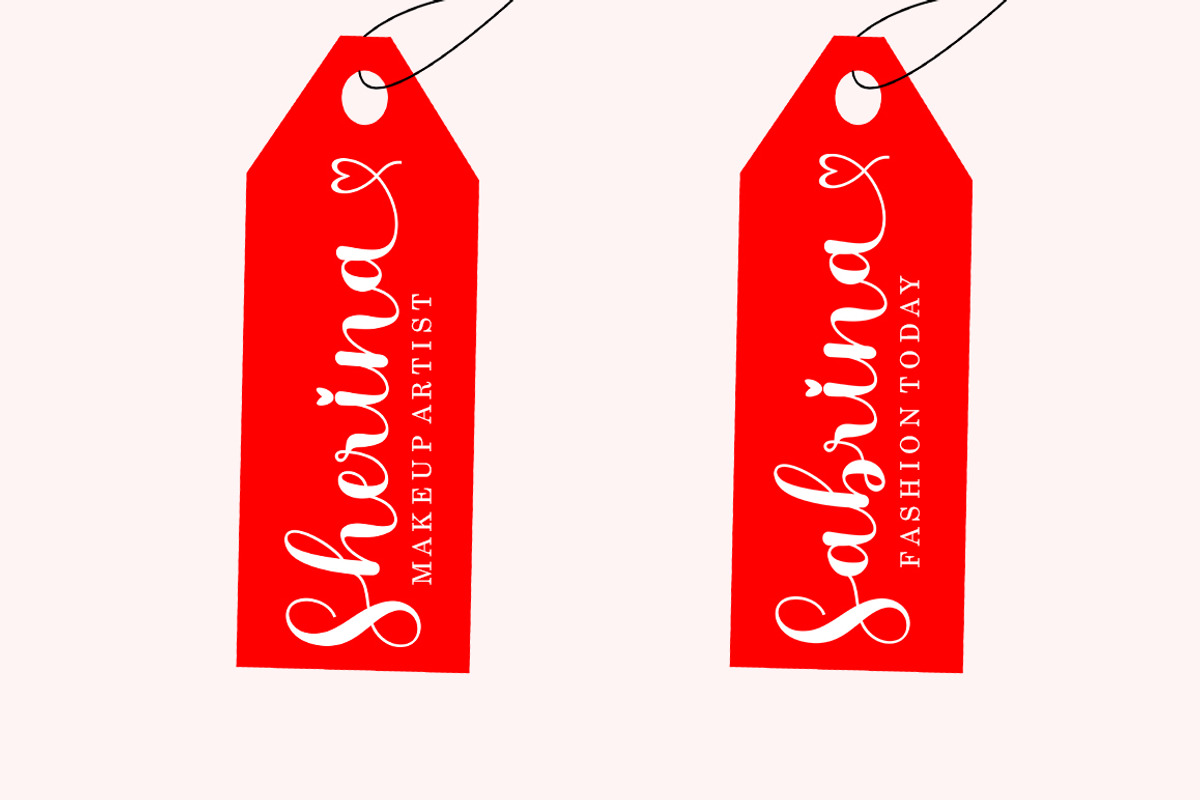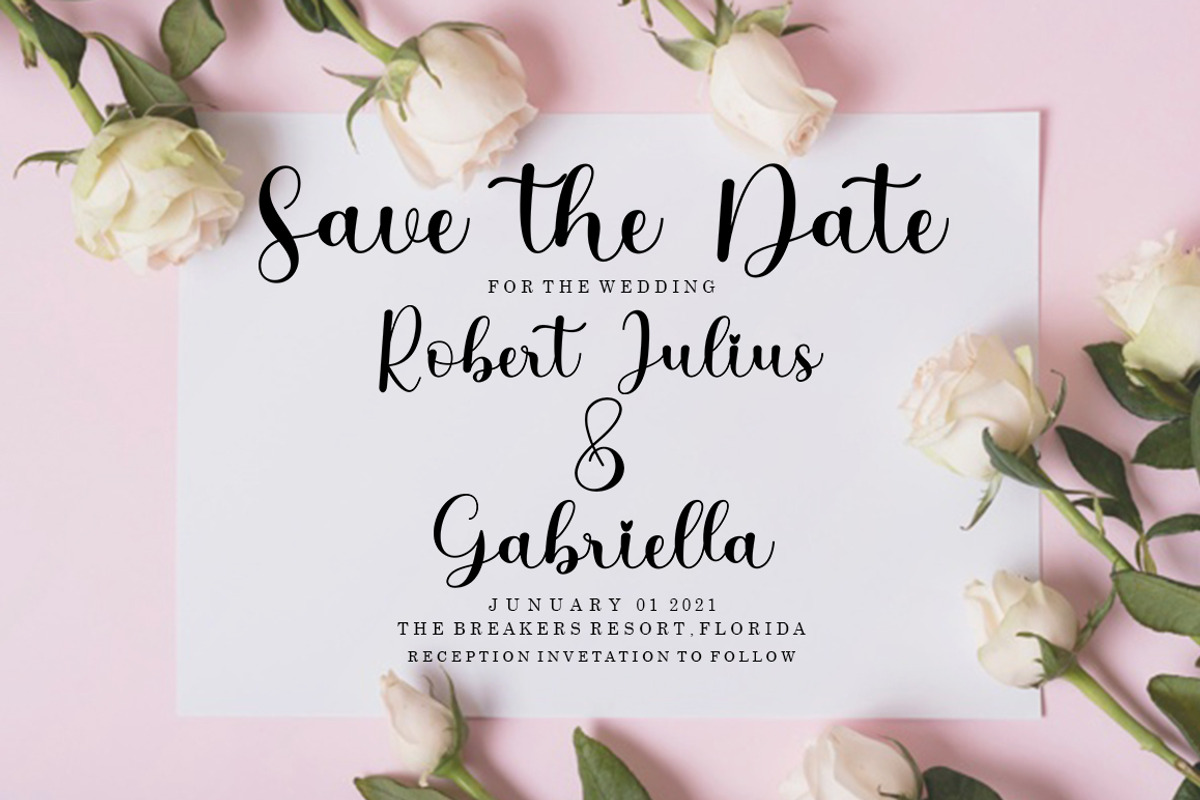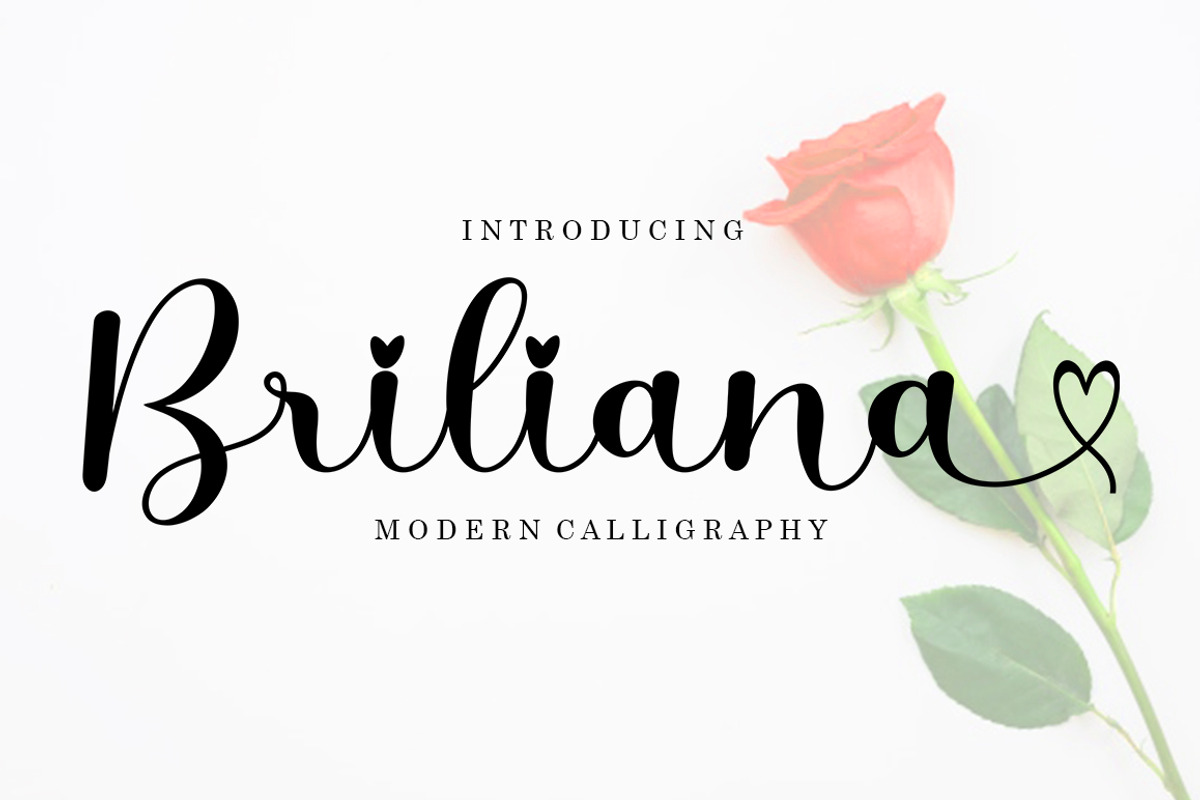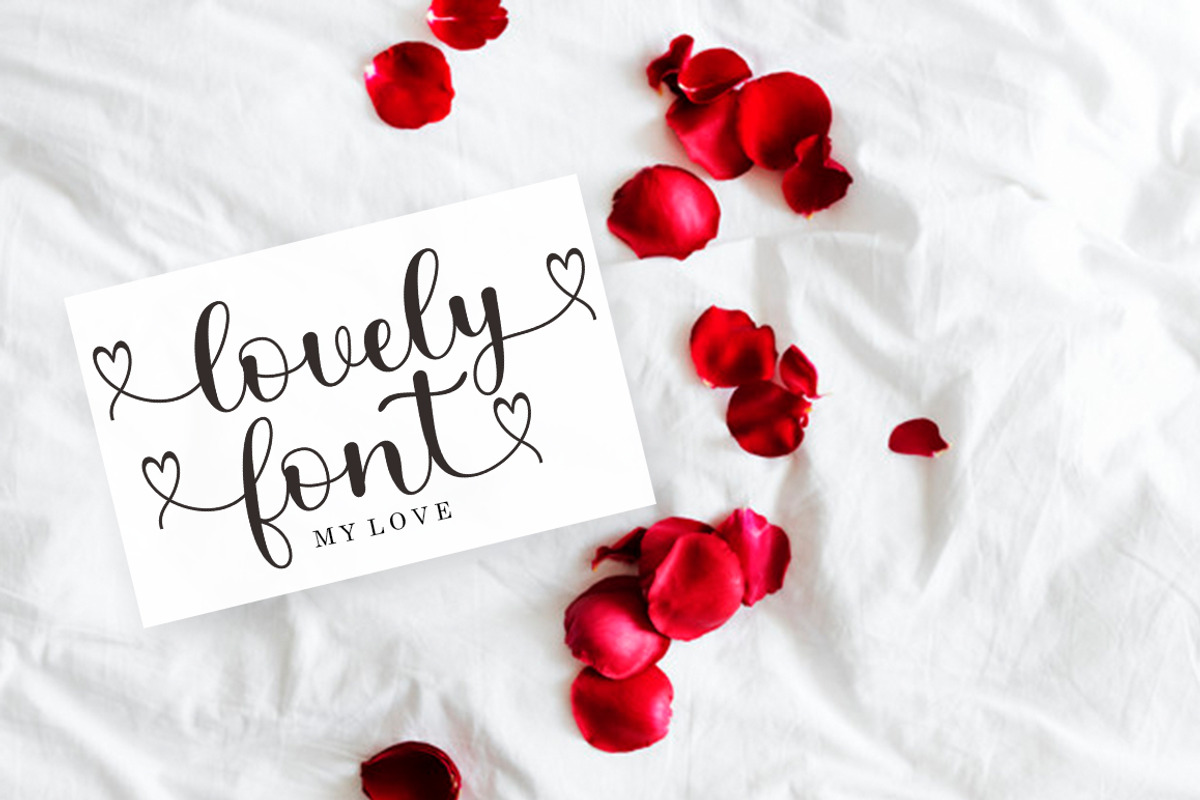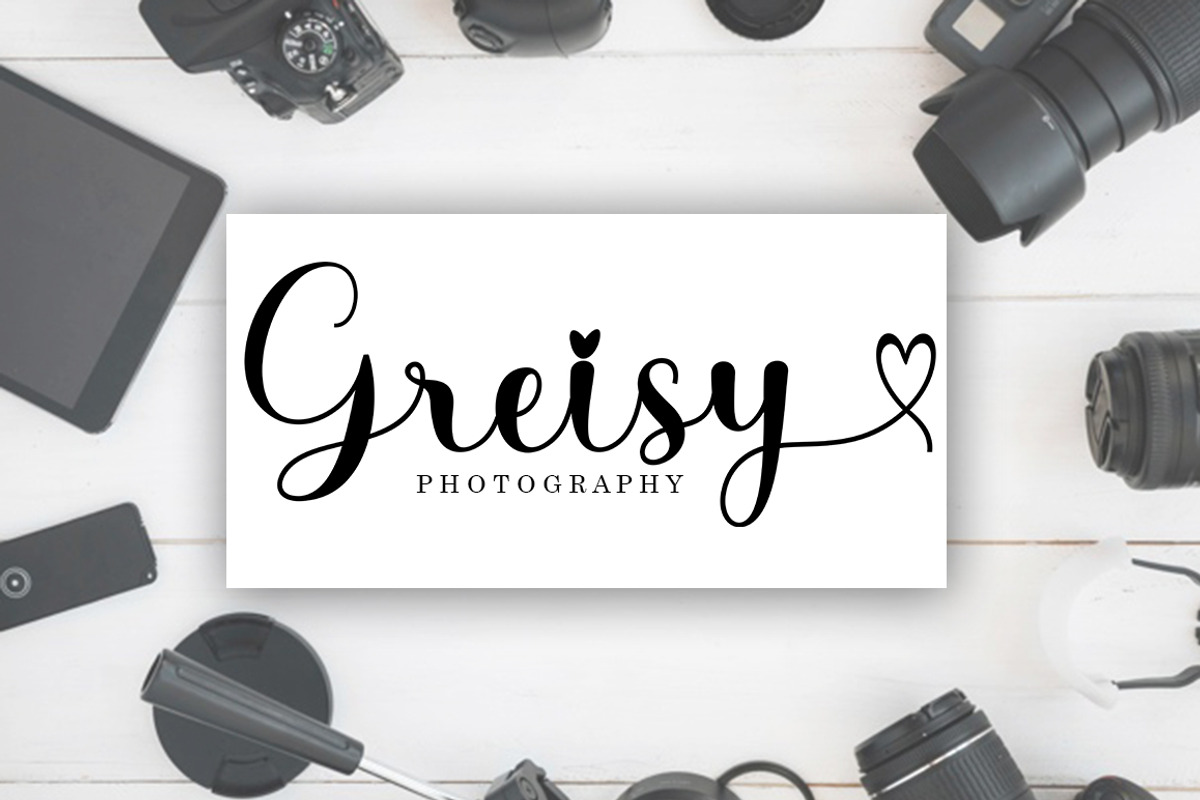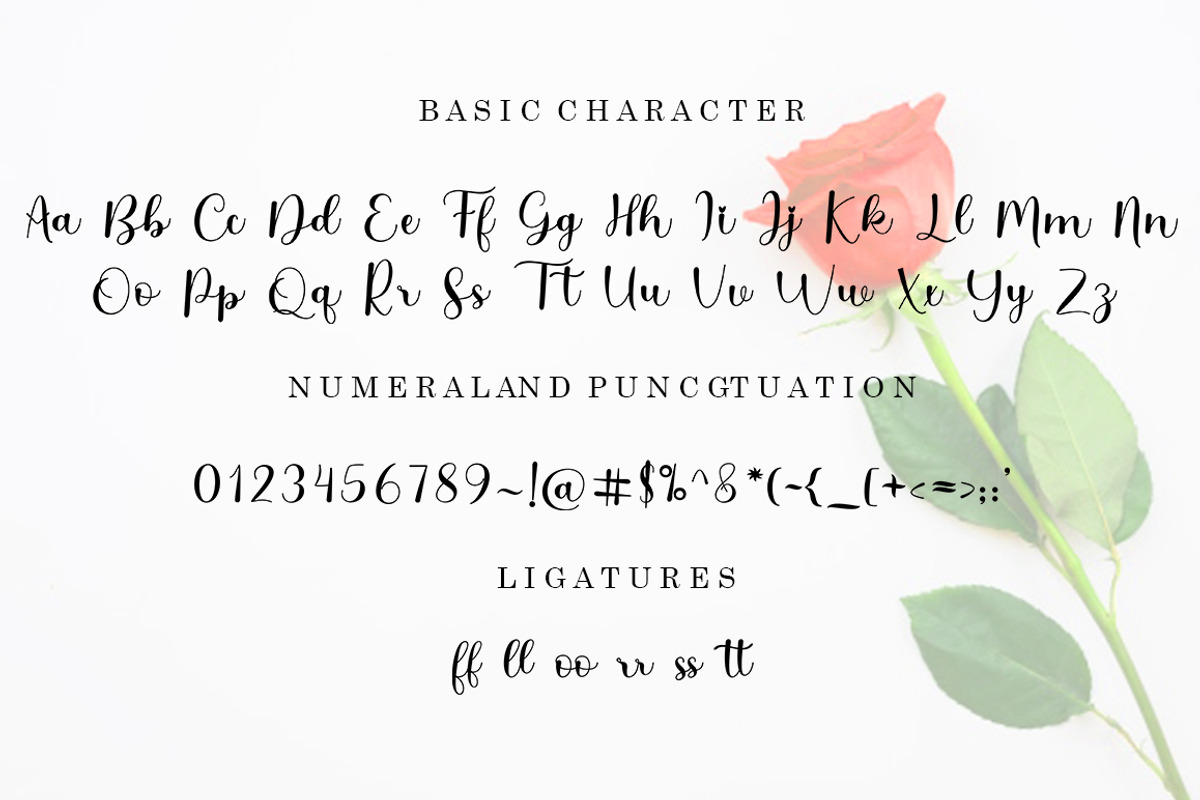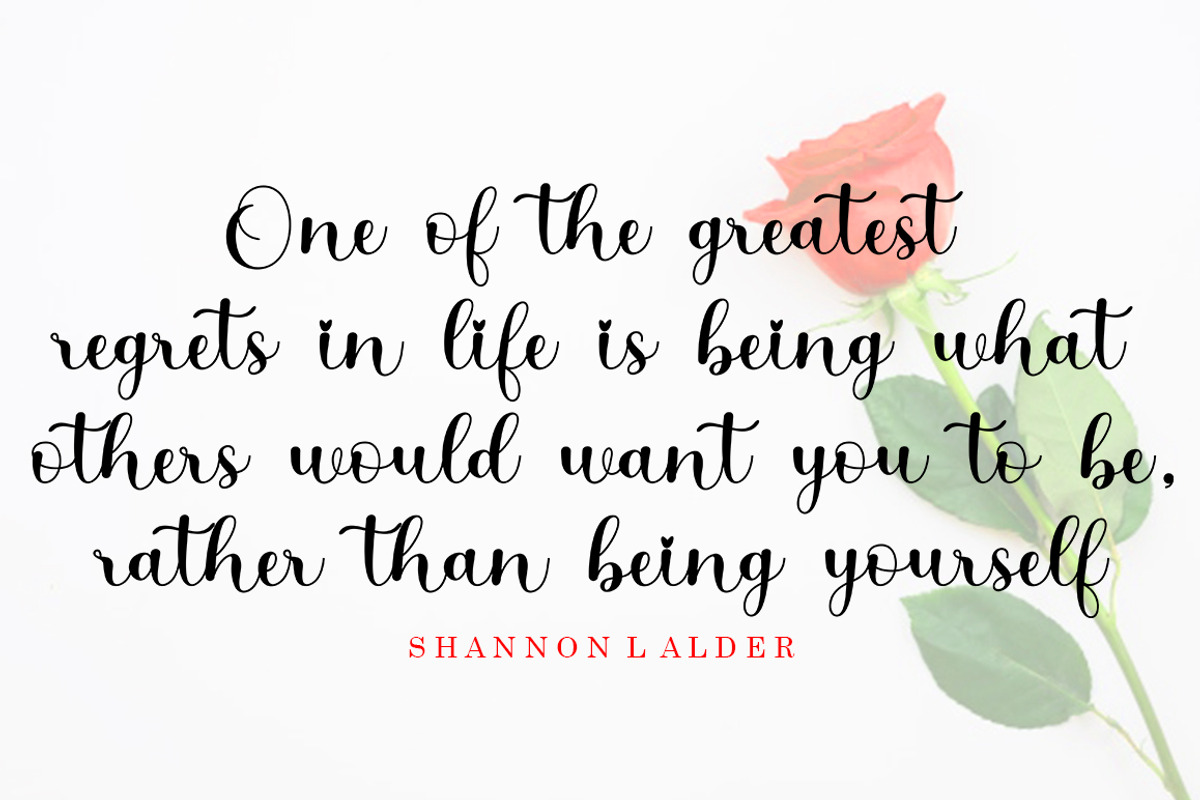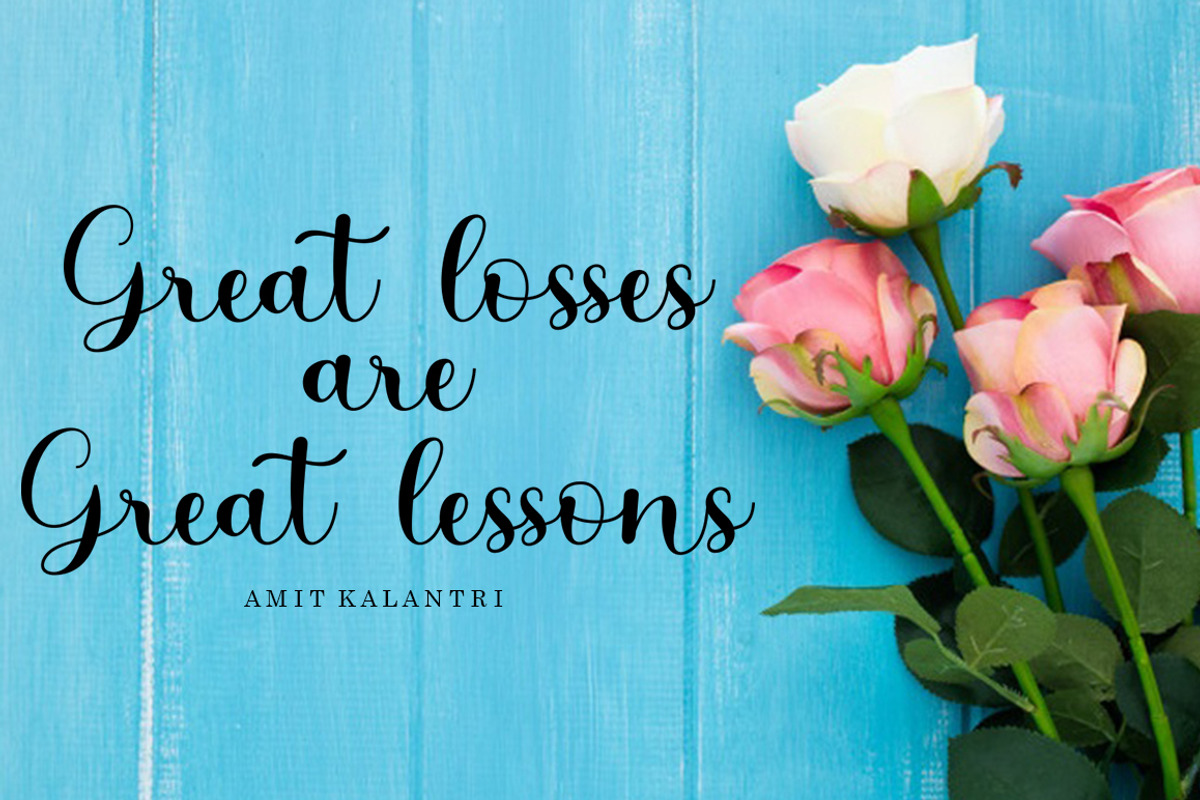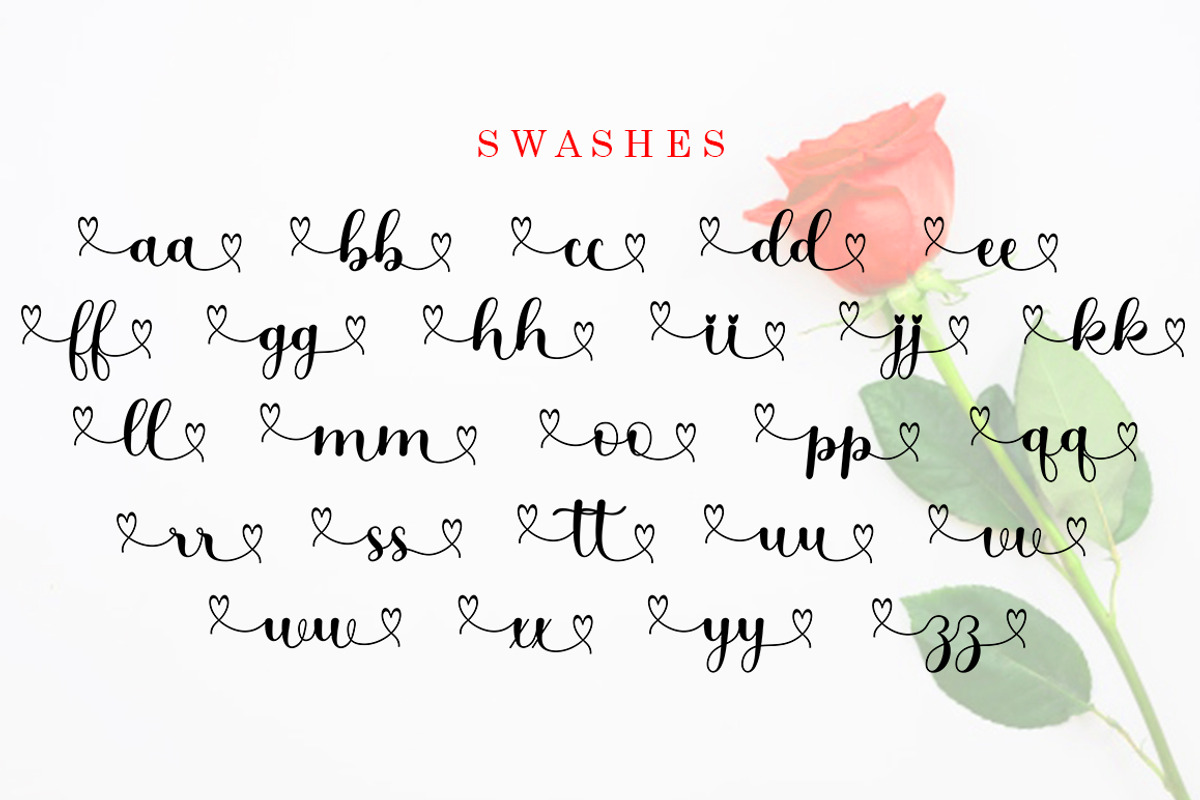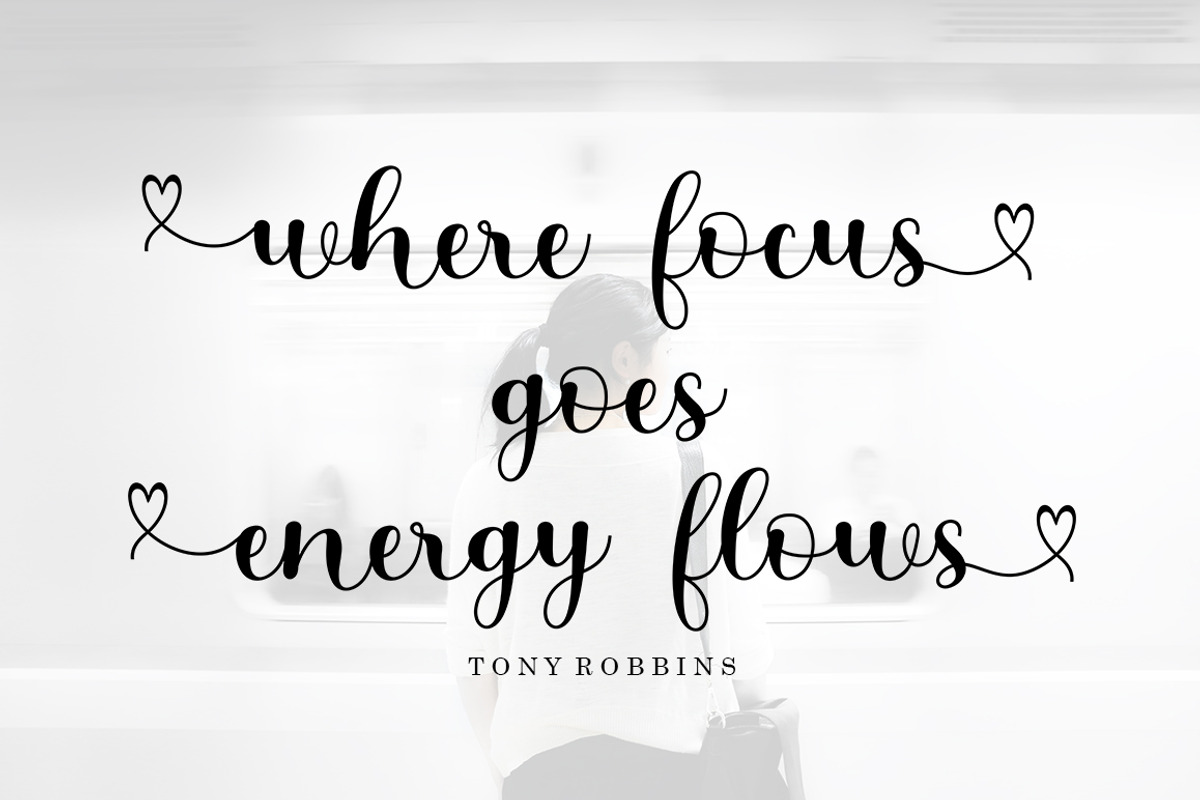
Briliana Script
Introducing
Briliana in a beautiful handwritten style. Equipped with 350 glyphs Briliana is perfect for branding projects, home appliance design, product packaging, use in business cards, invitation cards, etc. Simply as a stylish text overlay onto a background image or anything that requires a touch of elegance.